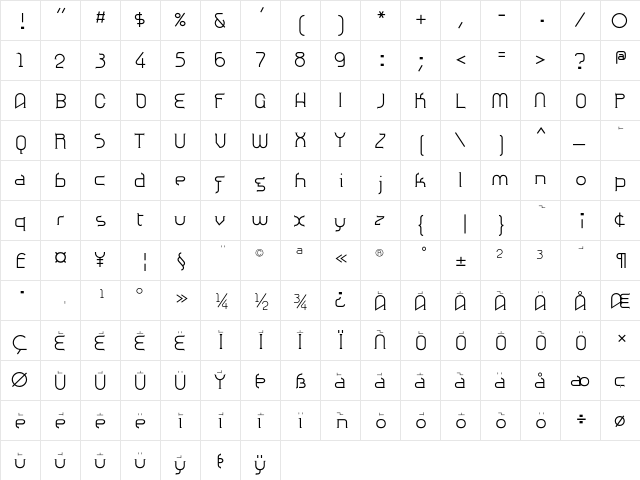
ALEX2 Regular
Design Context for ALEX2 Typeface
ALEX2 takes a measured approach to typography — its balanced proportions and neutral character make it a reliable workhorse for both digital and print work.